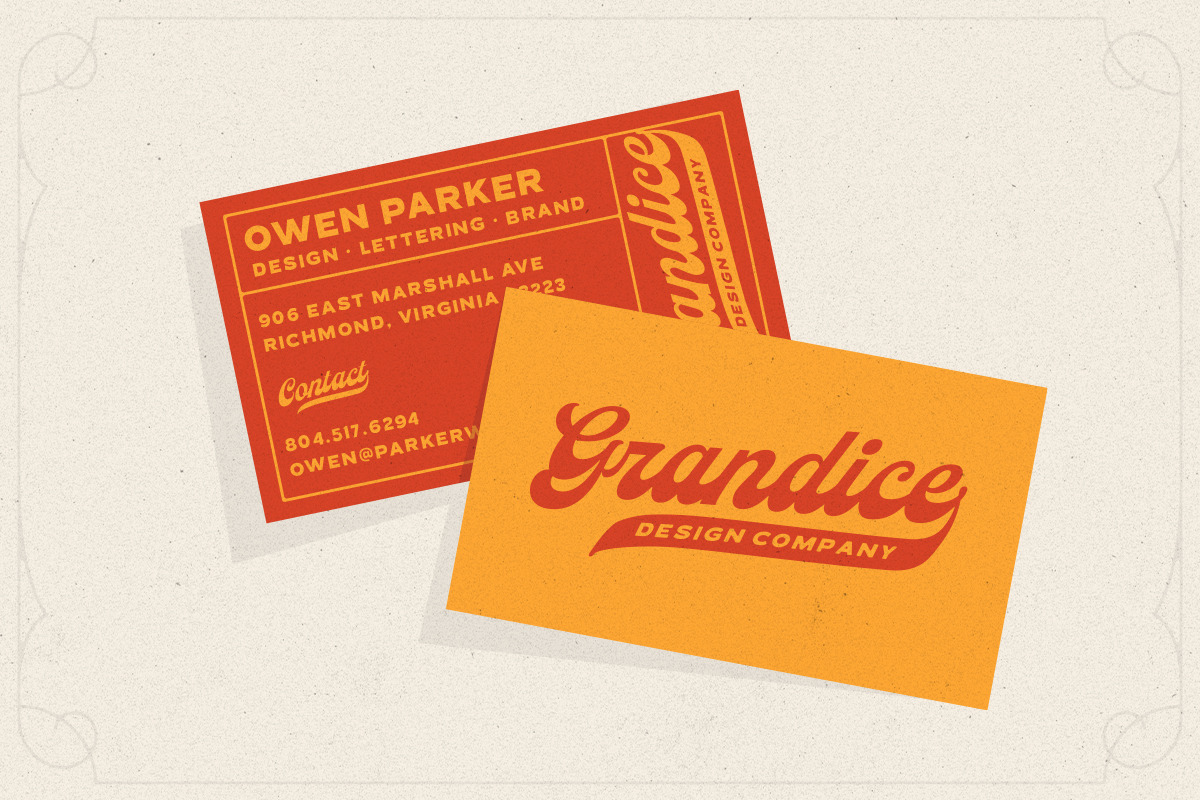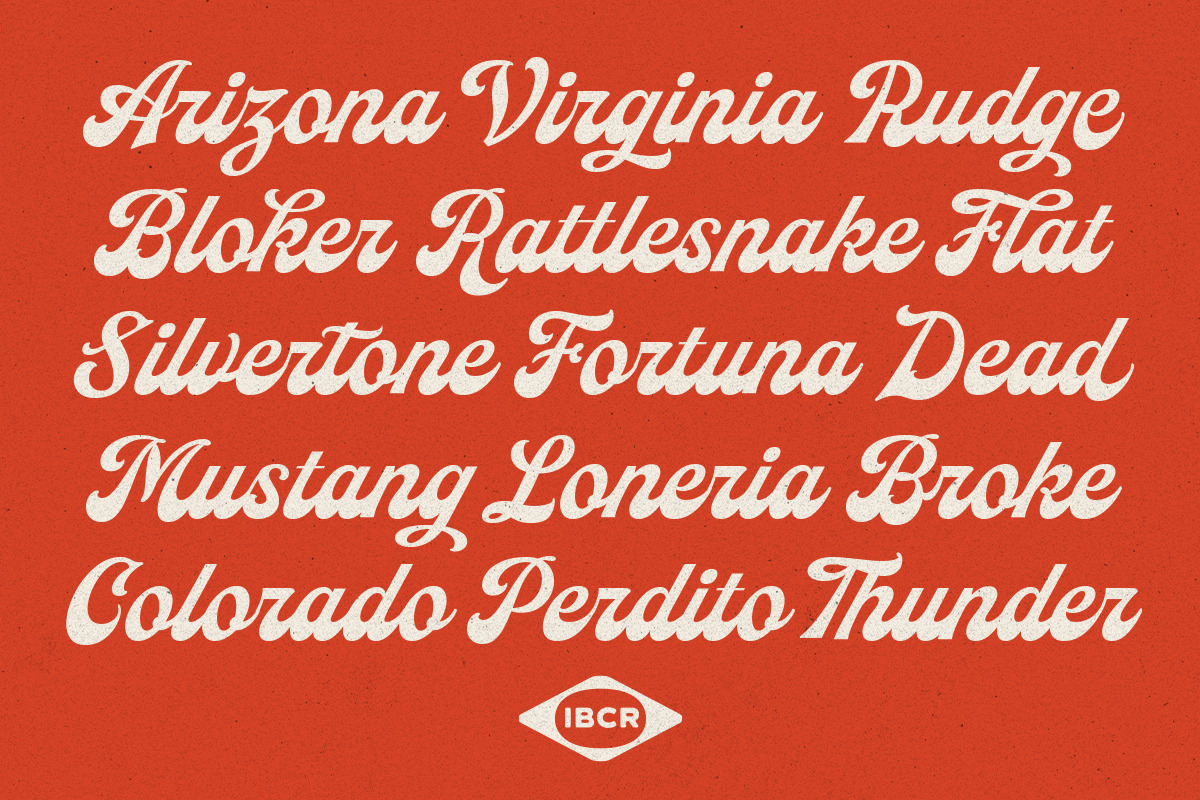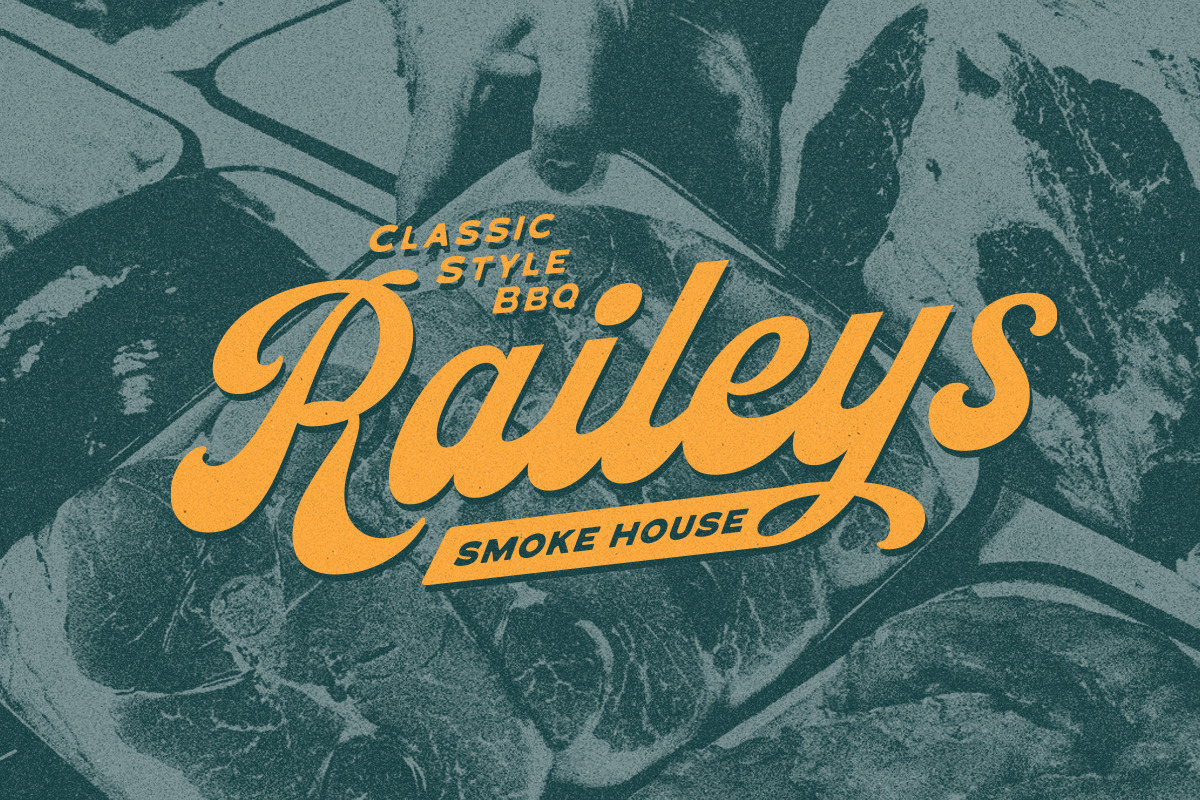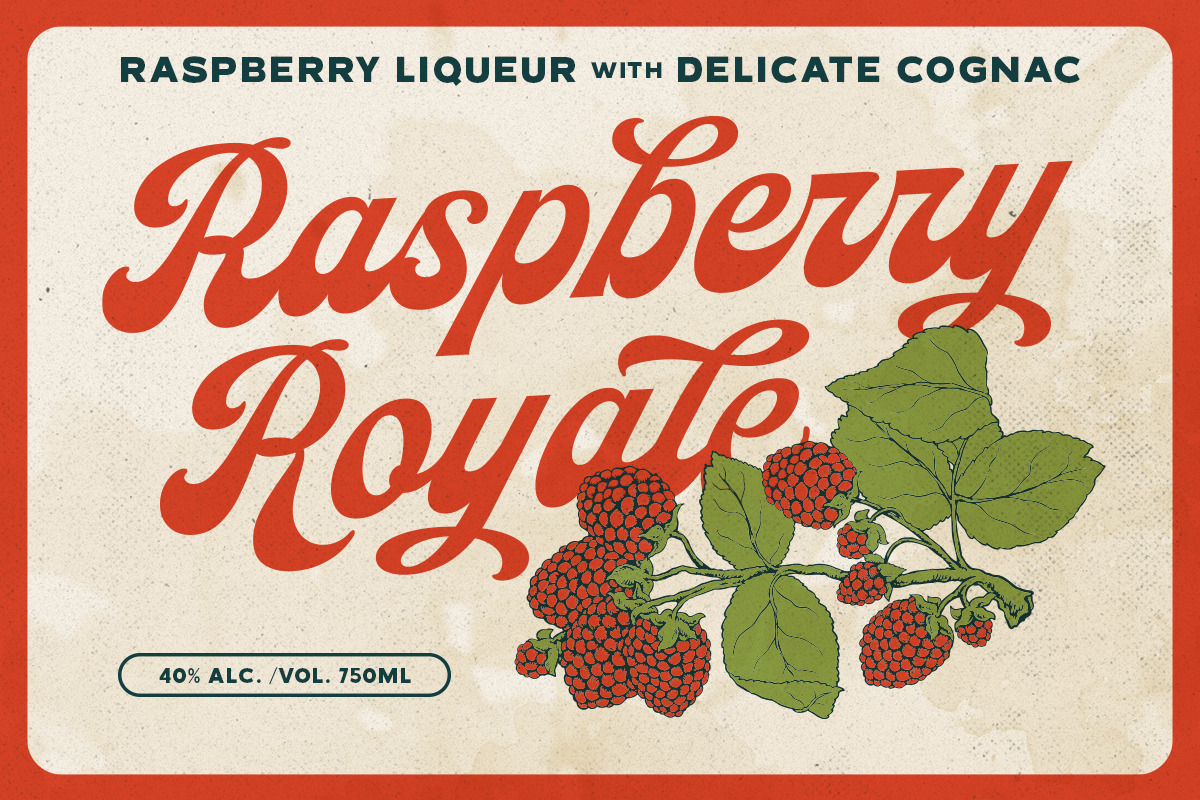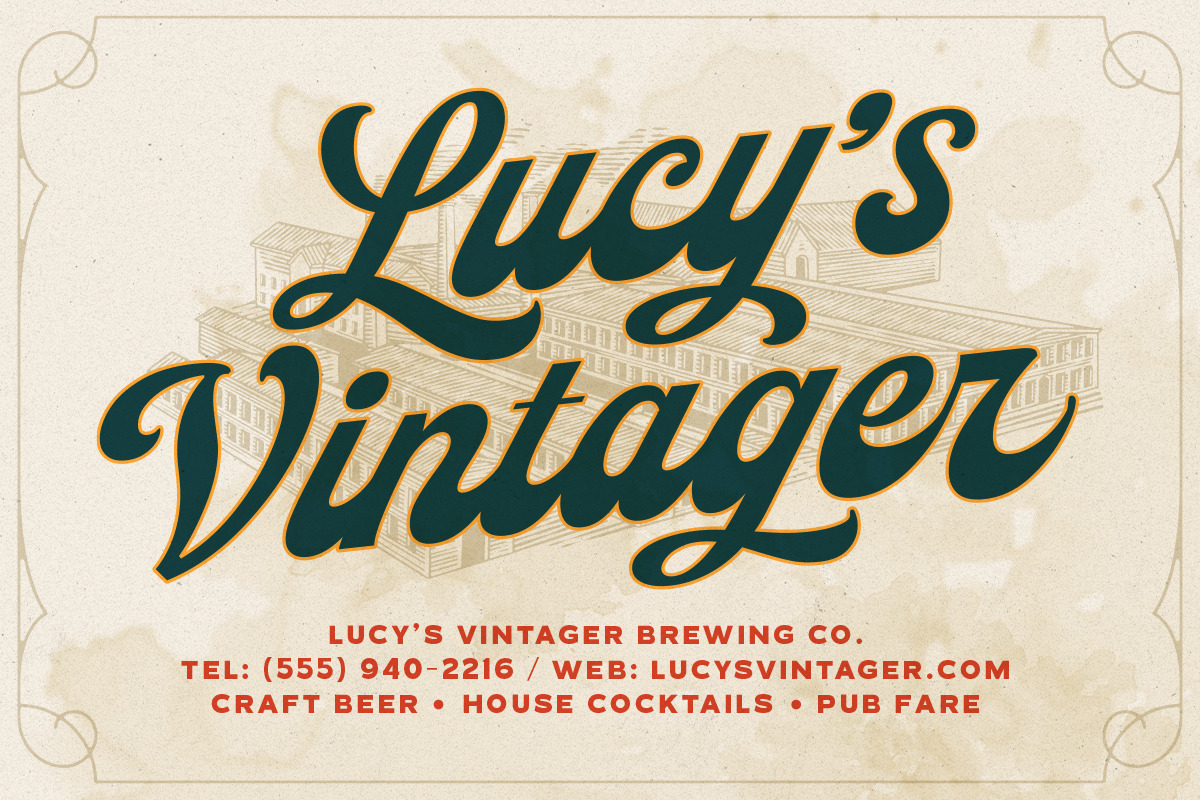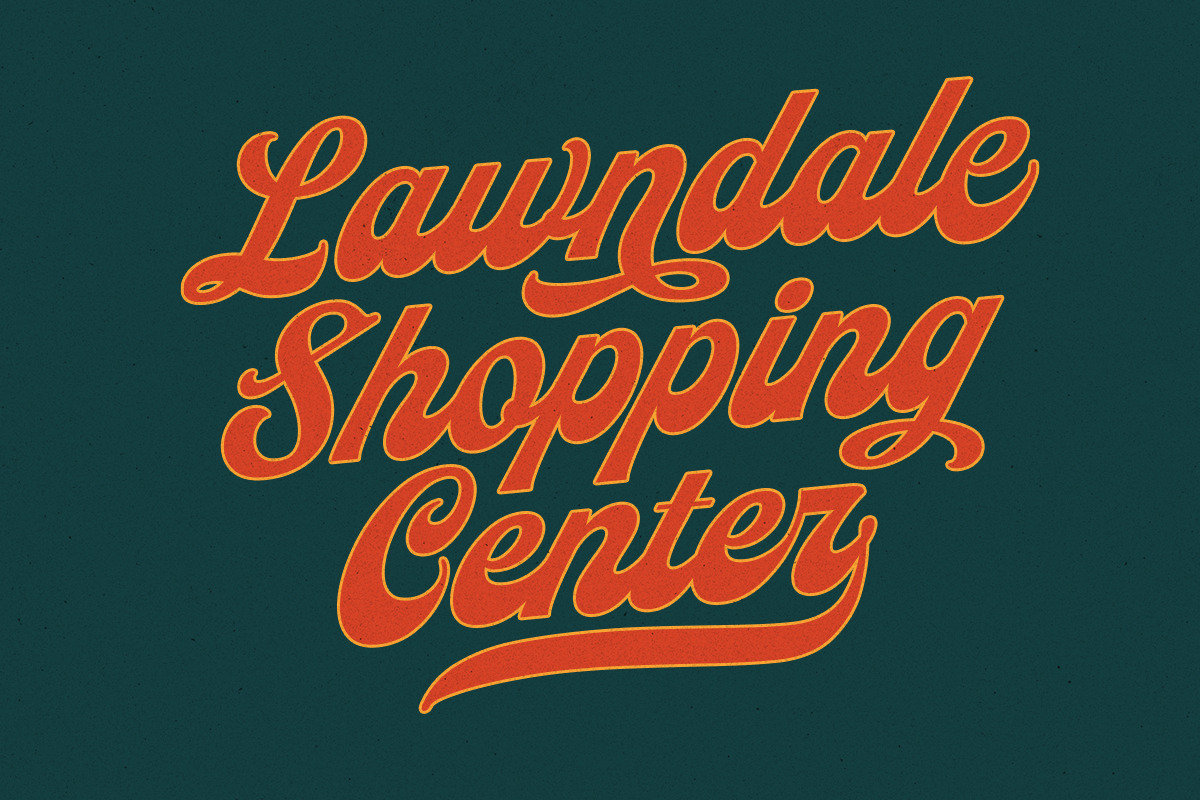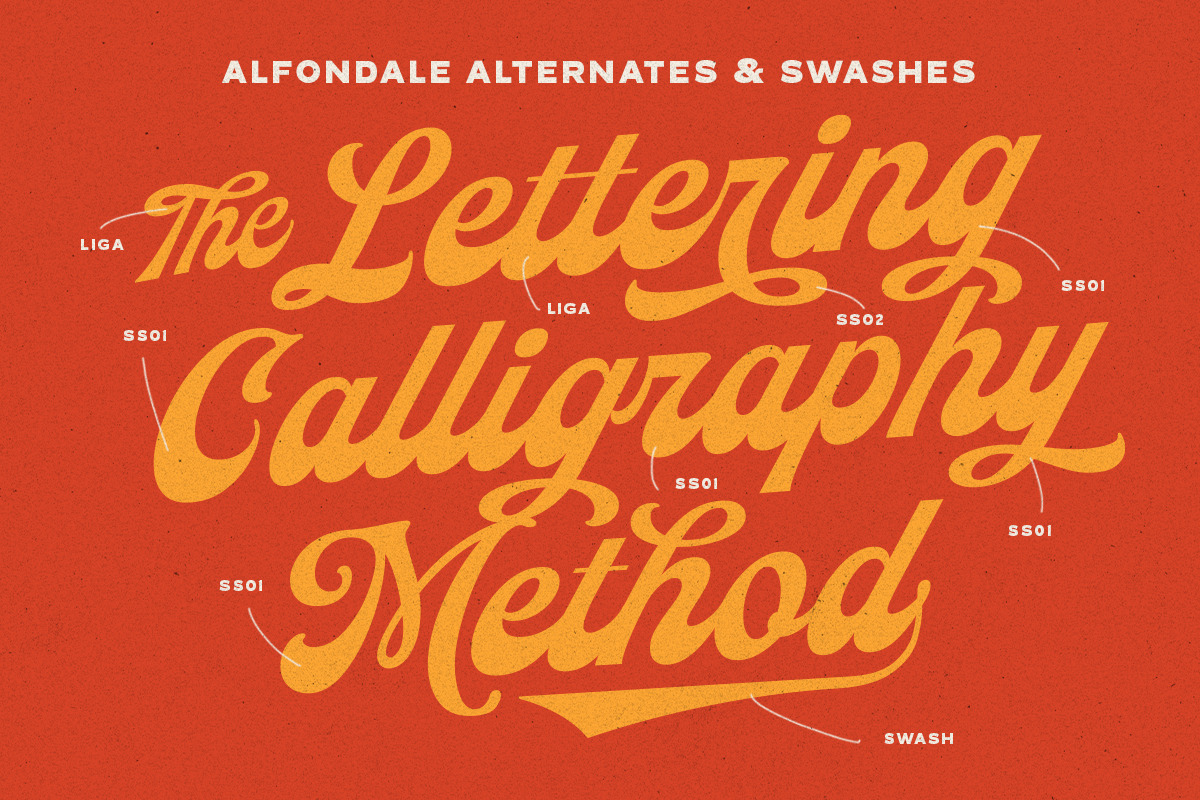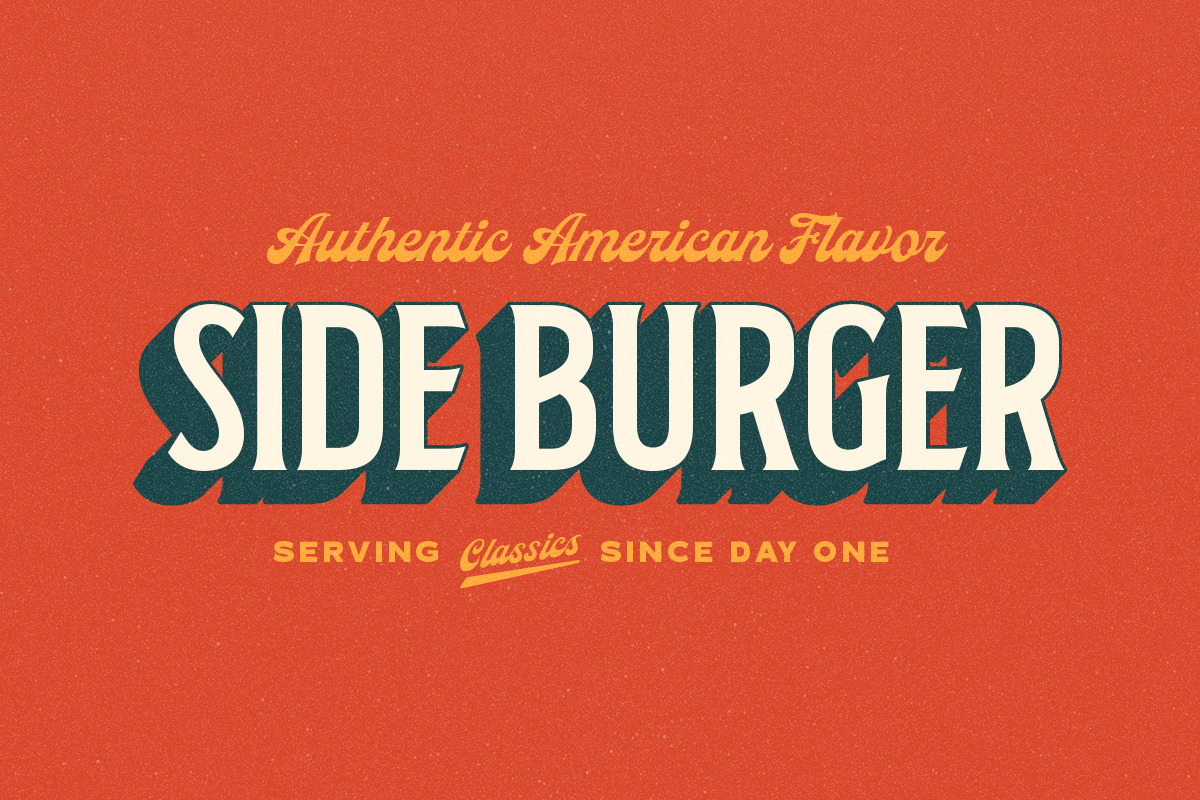
Alfondale - Vintage Script
Alfondale is a bold vintage script typeface inspired by classic retro lettering and old-school signage. Perfect for branding, packaging, restaurant logos, liquor labels, badges, signage, t-shirt designs, posters, quotes, and other retro-inspired graphic projects.